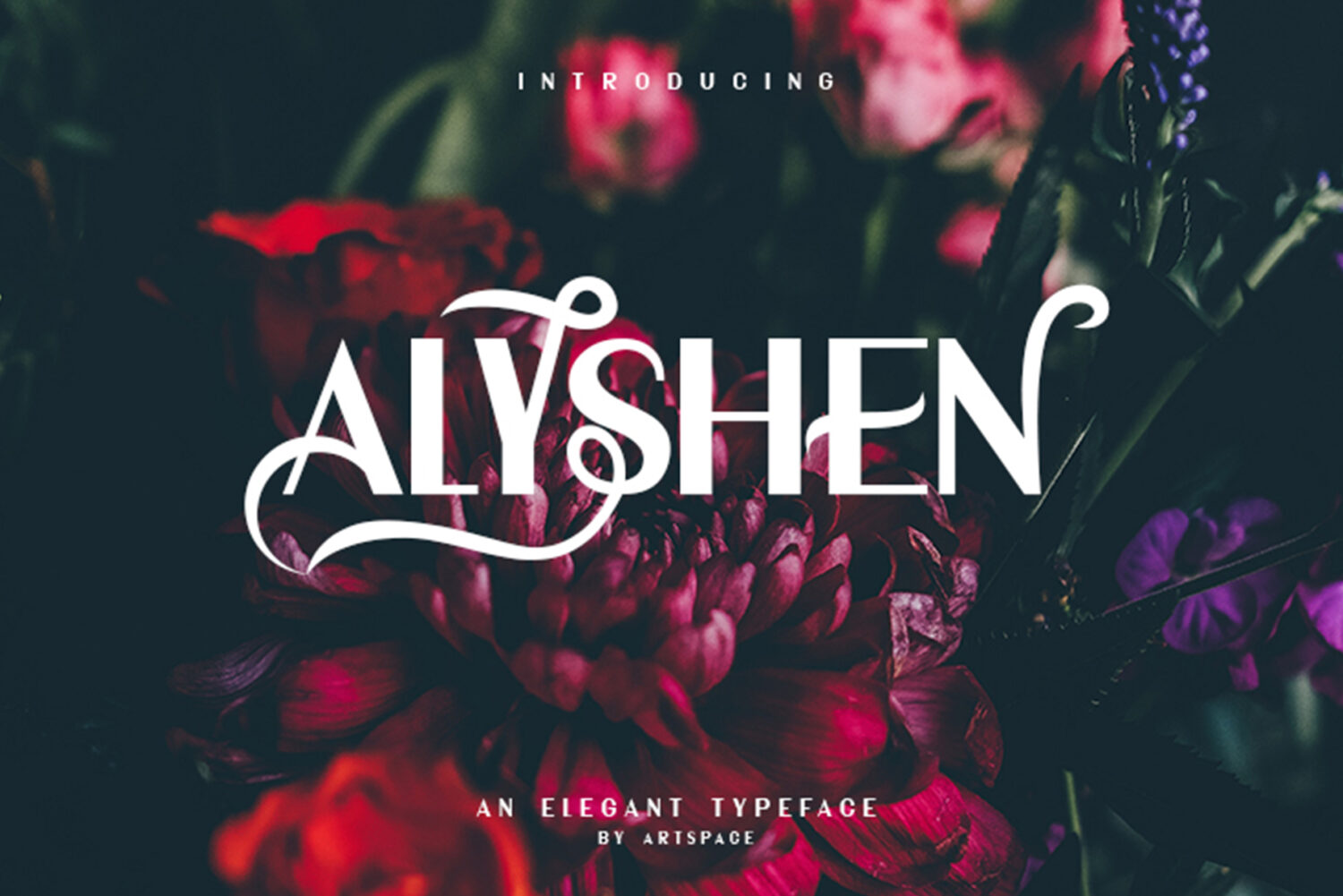
Alyshen Free Font
Alyshen Free Font is an elegant sans serif typeface. It has a feminine and elegant touch which makes it perfect for luxurious designs. This free typeface was designed by a talented Muhammad Mujibulloh. If you like it don’t forget to check out the full version.